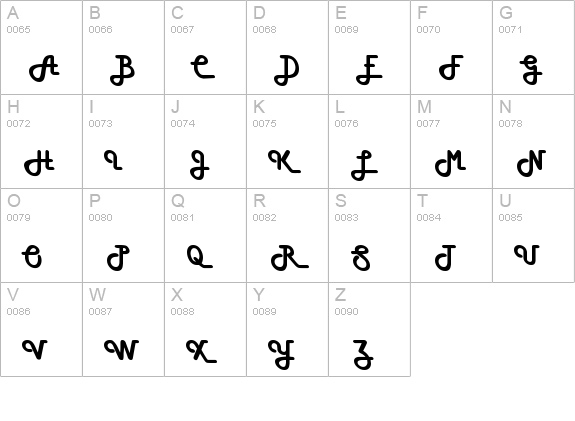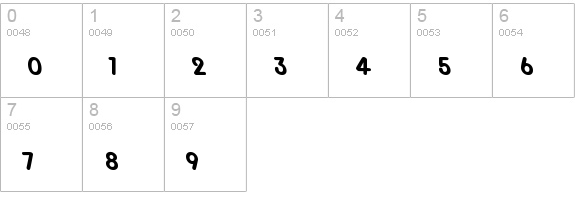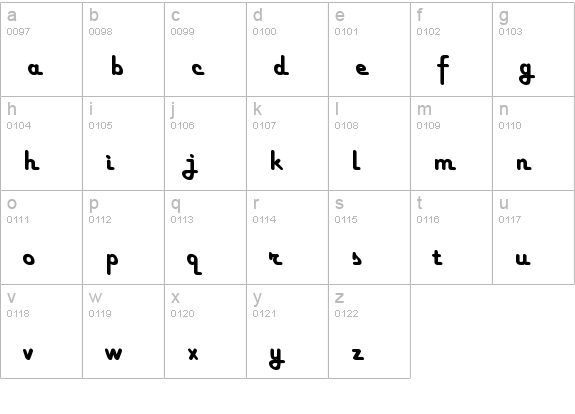
Hamburger Upright Font Details
Hamburger Upright font is a delightful and eye-catching typeface that will surely make your designs stand out. Its bold and upright letterforms add a unique twist to any project, whether it's a poster, logo, or website design. With its playful and lively style, Hamburger Upright font is perfect for capturing attention and conveying a fun and friendly vibe. Its rounded edges and thick strokes give it a touch of warmth and approachability, making it ideal for a wide range of creative projects. But what makes this font even more appealing is that it is freely available to download at FontsMarket.com. Yes, you heard it right! You can get your hands on Hamburger Upright font without spending a dime. This means that you can use it in both personal and commercial projects without any restrictions. Whether you're a graphic designer, a blogger, or a small business owner looking to spice up your branding, Hamburger Upright font is a fantastic choice. Its versatility and whimsical charm will add a dash of personality to your designs and help you create a lasting impression. So why wait? Head over to FontsMarket.com and grab your free download of Hamburger Upright font today. Unleash your creativity and let this playful typeface take your designs to new heights.